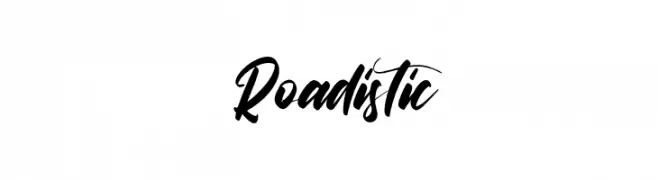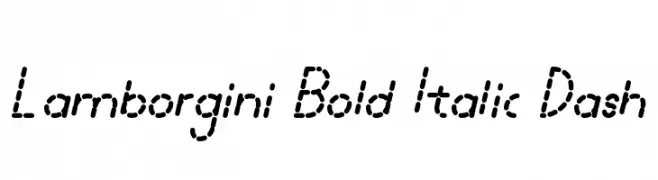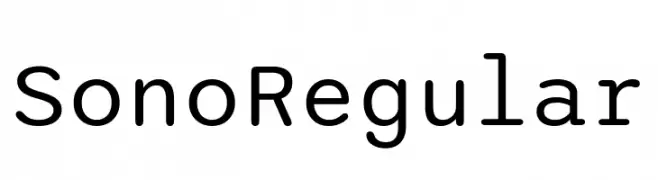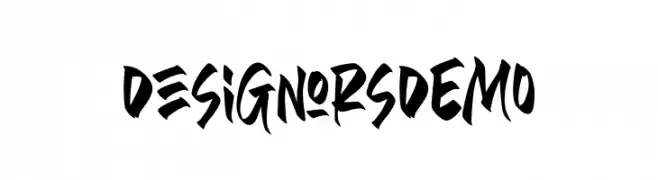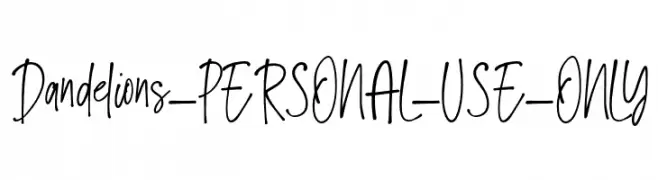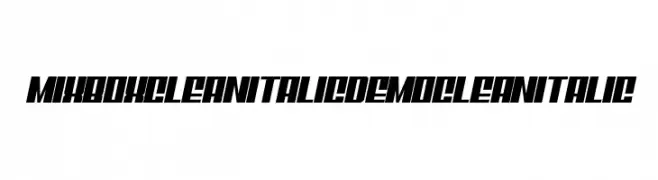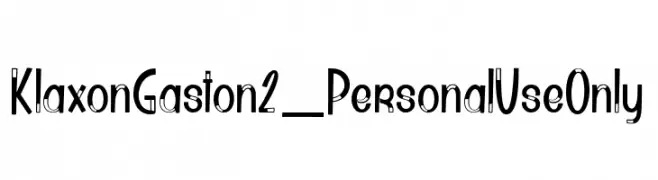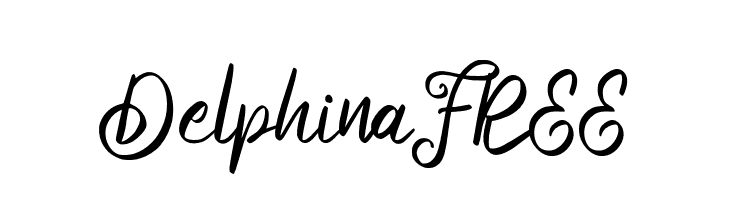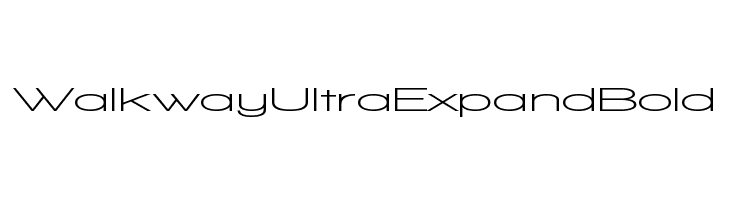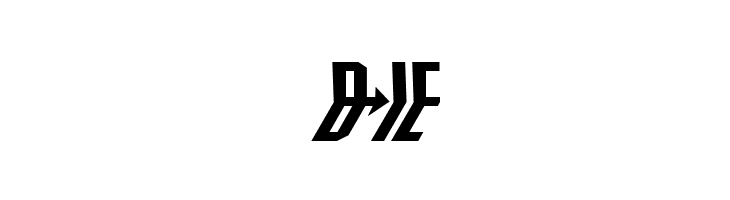
A bold, flowing script font with a dynamic and elegant handwritten style.
A dynamic and expressive script font with fluid, elegant strokes.
A stylish handwritten font with elegant, flowing script and unique flourishes.
A bold, italicized font with a unique dashed style for a modern, playful look.
A modern, geometric sans-serif font with rounded edges and excellent readability.
A bold, energetic font with sharp, angular strokes and a graffiti-like style.
A modern, rounded font with a clean and friendly appearance.
Tall, narrow handwritten script with a casual, playful style.
A bold, geometric italic font with a modern and dynamic style.
A playful, modern font with geometric influences and decorative elements.